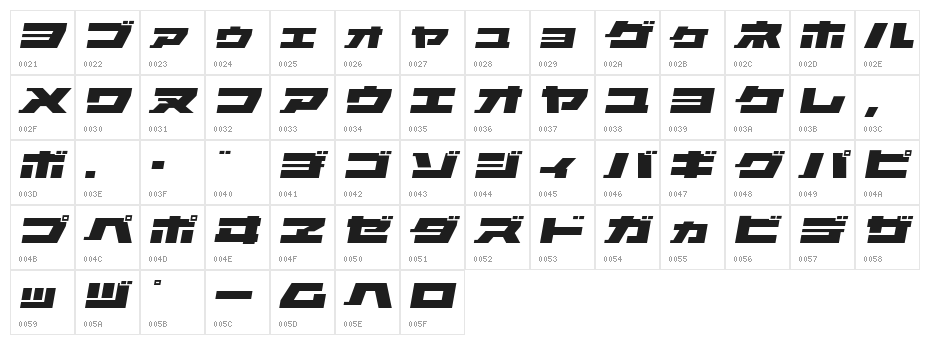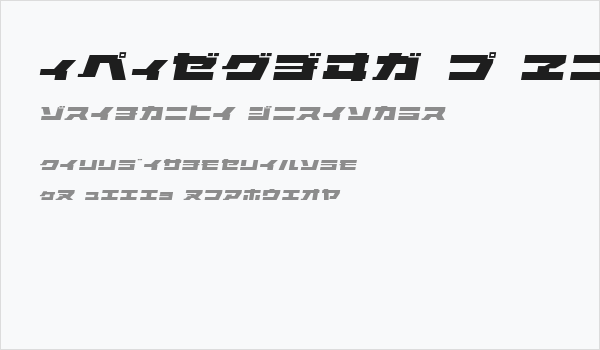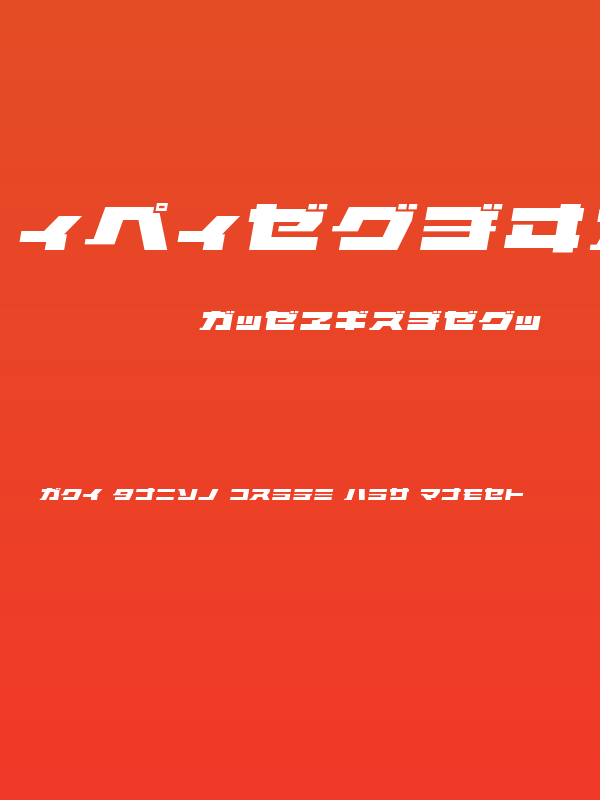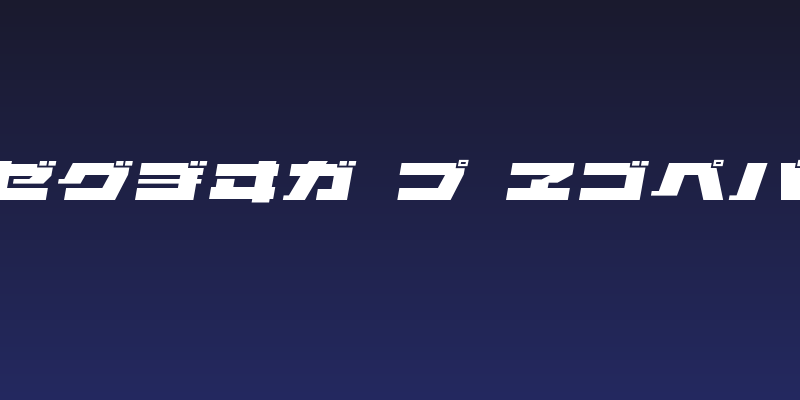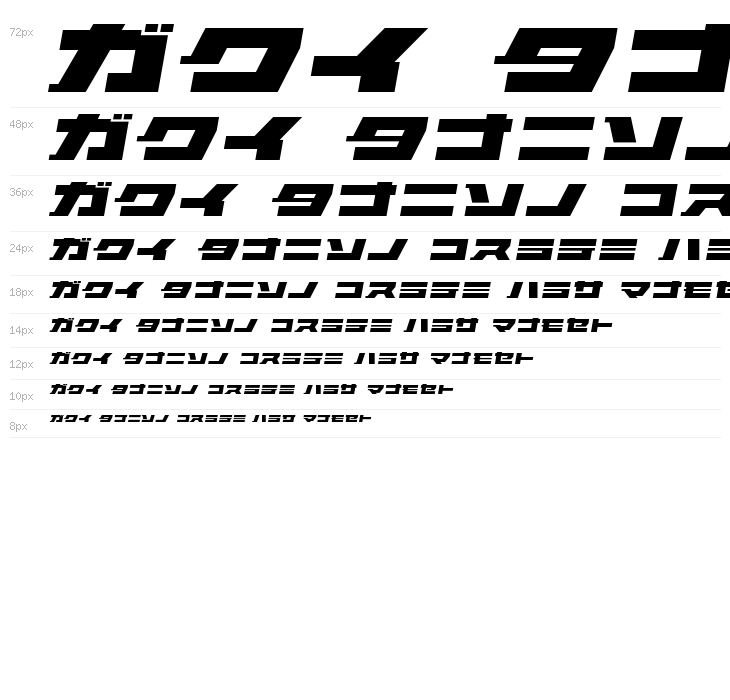
ELEPHANT K Oblique Font
ELEPHANT K Oblique Description
This font features a bold and geometric style with a distinct oblique slant, giving it a dynamic and futuristic appearance. The characters are blocky and angular, with consistent stroke widths that create a strong visual impact. The design incorporates sharp edges and a uniform thickness, making it highly legible while maintaining a unique aesthetic. Its structured form and slanted orientation suggest movement and modernity, making it suitable for attention-grabbing designs.
| Proposed Projects | Ideal for sci-fi themed posters, video game titles, technology branding, and dynamic logo designs. |